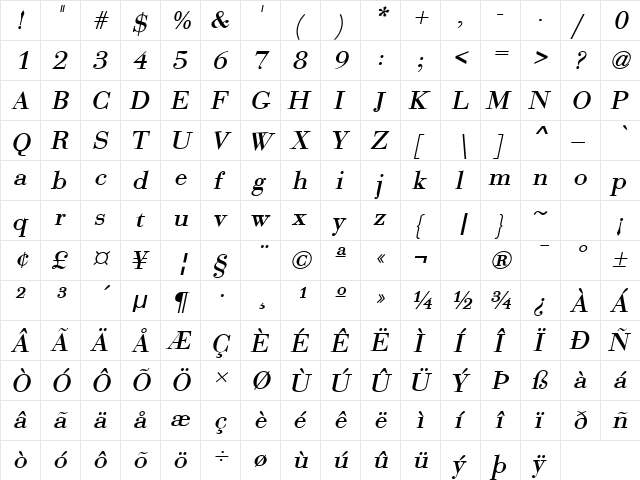
Sweez BoldItalic
Design Context for Sweez Typeface
Sweez is a composed and adaptable typeface that performs quietly and consistently across a wide range of design contexts. The slanted form adds forward momentum and visual energy. Its bold stroke weight gives it real presence on the page.
Pro Tip: Use Sweez for emphasis, pull quotes, and subheadings where its slanted energy can add rhythm to the layout.